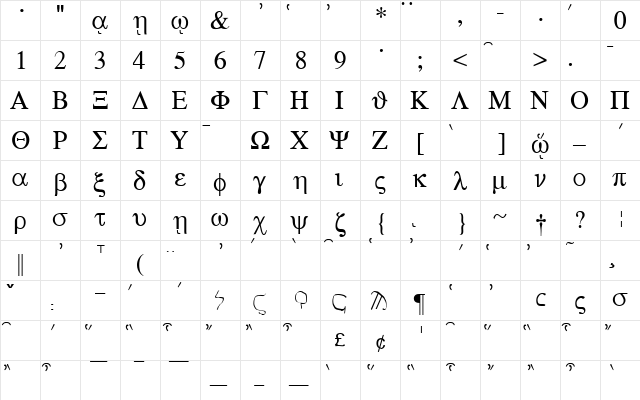
Sgreek Normal
Design Context for Sgreek Typeface
Sgreek takes a measured approach to typography — its balanced proportions and neutral character make it a reliable workhorse for both digital and print work.